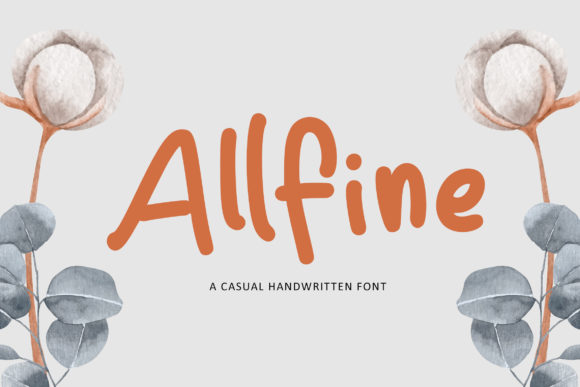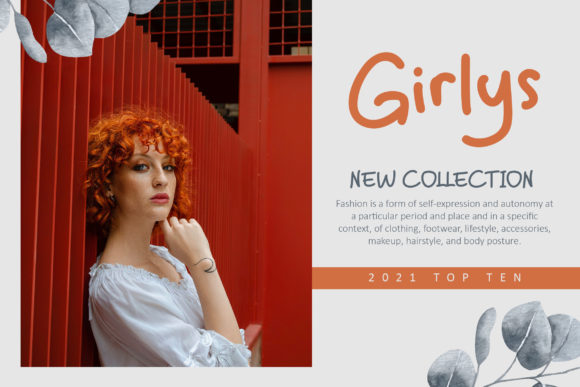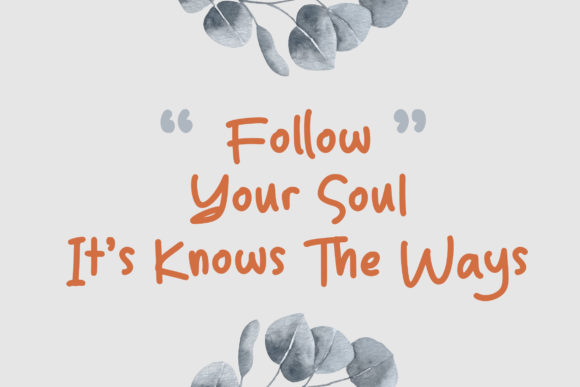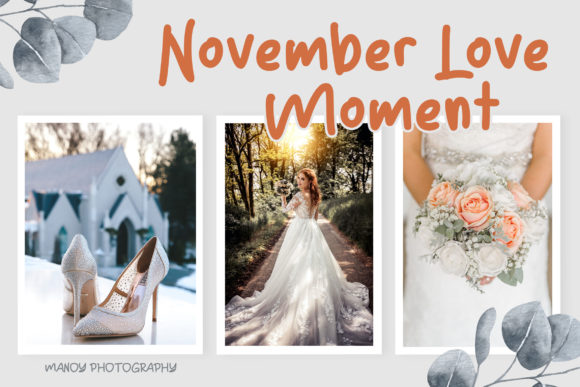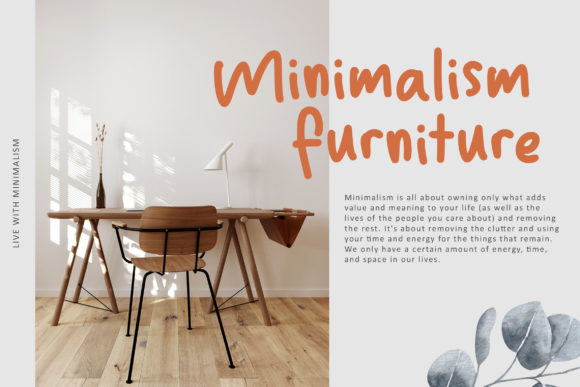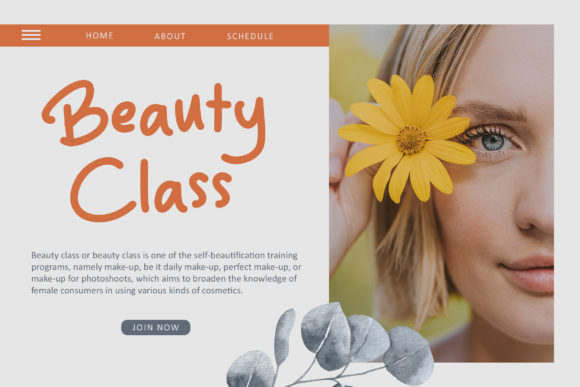
Allfine Font
About Allfine Font
Allfine is a cute, quirky and informal handwritten font. Its cool style and casual vibe will make this font a go-to choice for each of the creations that require a relaxed touch.